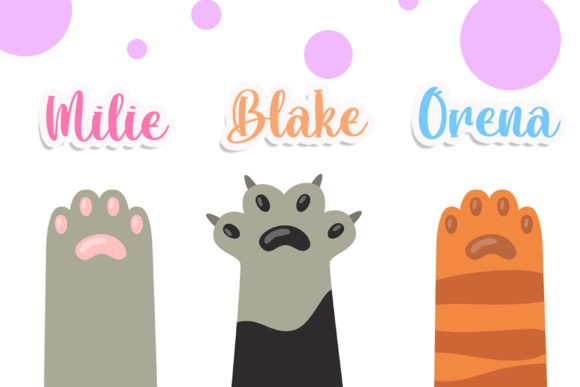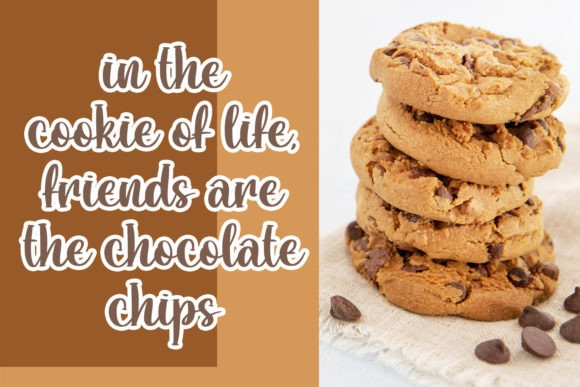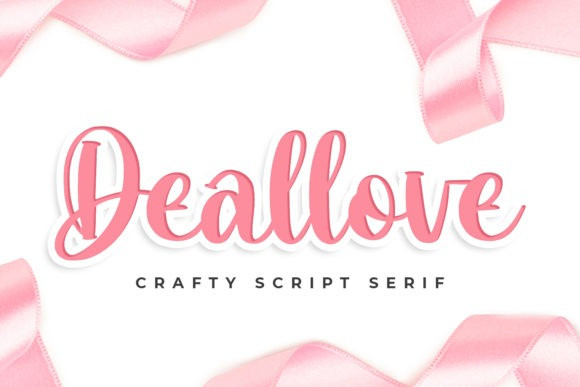
Deallove Font
Deallove Script Font is a lovely paint brushed handwritten font. Incredibly organic and trendy, this font will make each of your designs look ravishing.